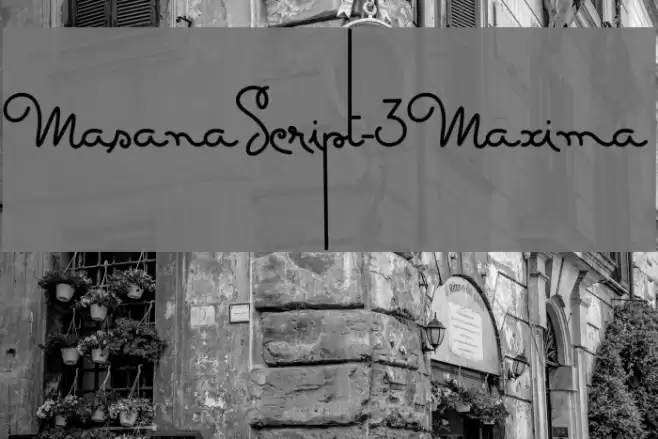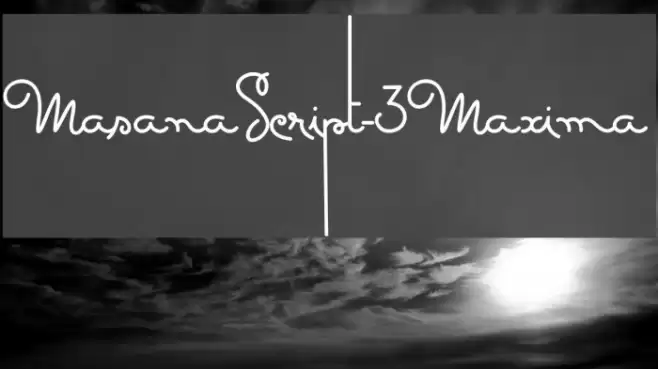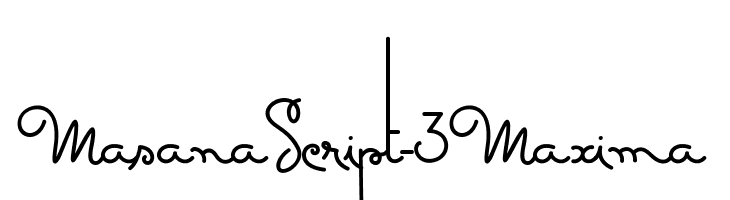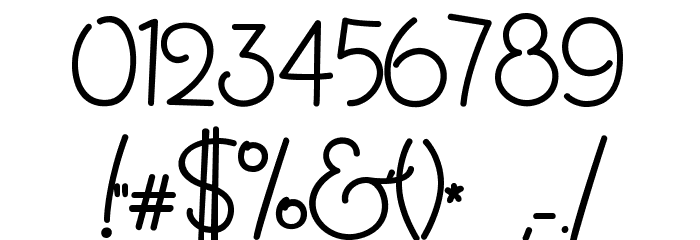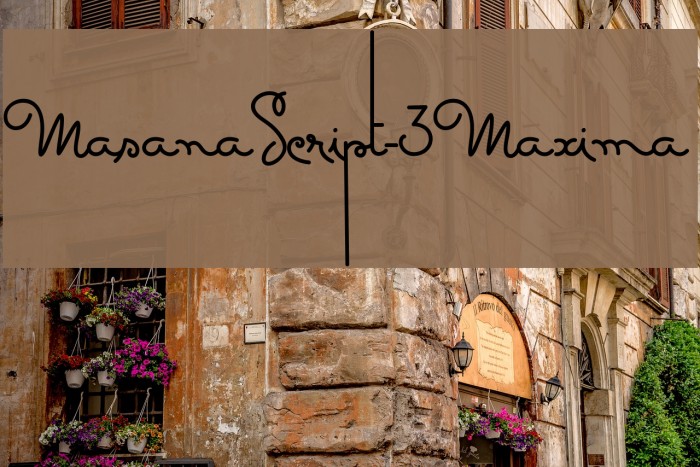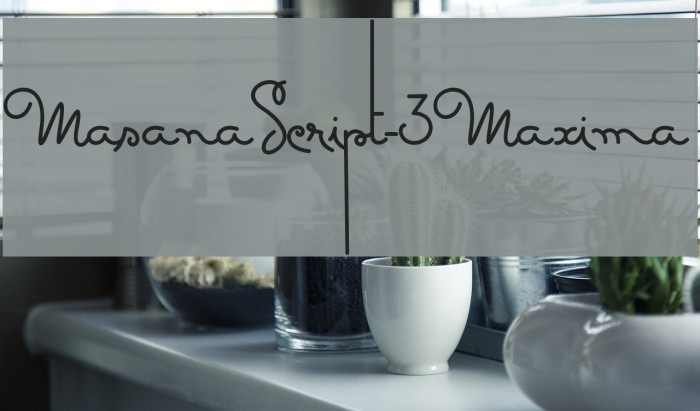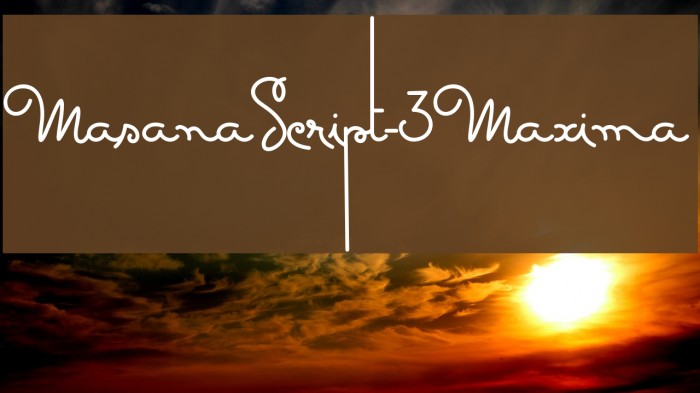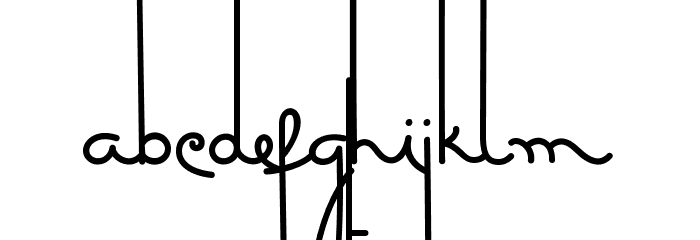
MasanaScript-3Maxima Font
MasanaScript-3Maxima Description
This font features a playful and elegant script style with a distinctive flow. The uppercase letters are characterized by their looping, cursive design, giving a sense of movement and fluidity. The lowercase letters maintain a consistent style, with some characters extending below the baseline, adding to the dynamic appearance. The numerals are bold and clear, complementing the overall aesthetic. Special characters are designed with the same attention to detail, ensuring they blend seamlessly with the rest of the font. This font's unique style makes it suitable for creative and artistic projects.
A playful and elegant script font with a flowing, cursive design from Uncategorized fonts.
- Proposed Projects: Ideal for invitations, greeting cards, branding, and artistic projects.
- Use Case: Logos, Invitations, Artistic projects